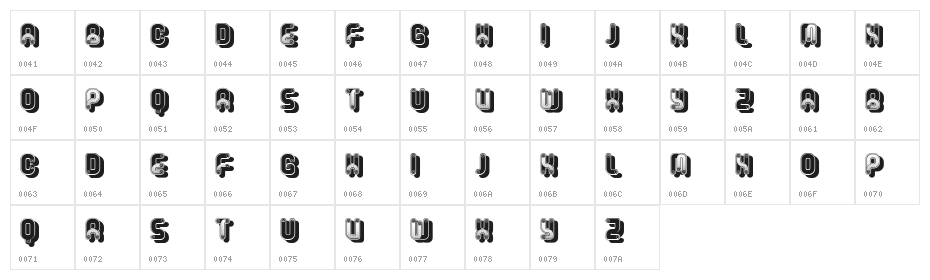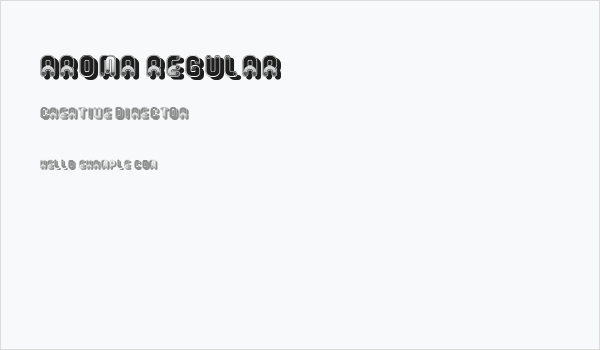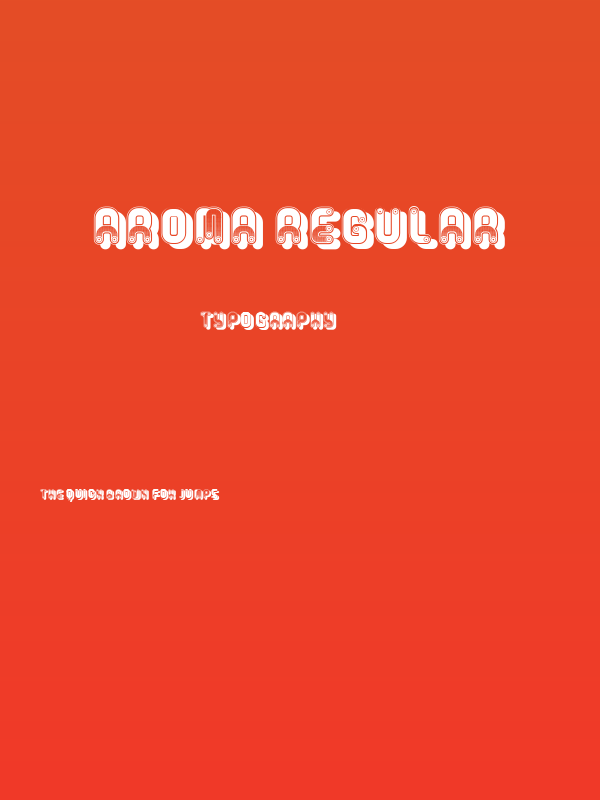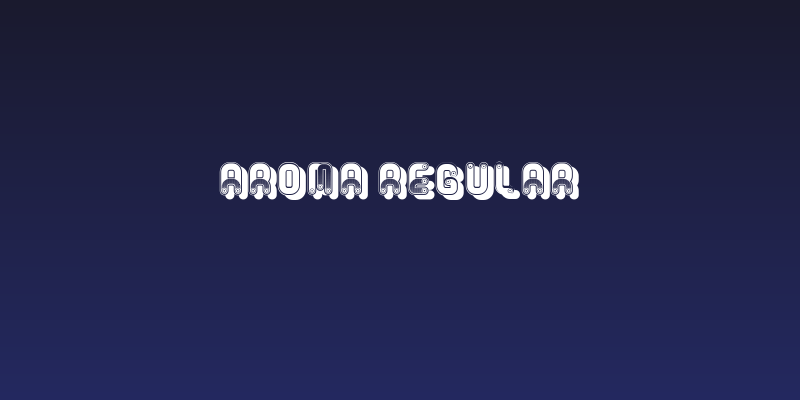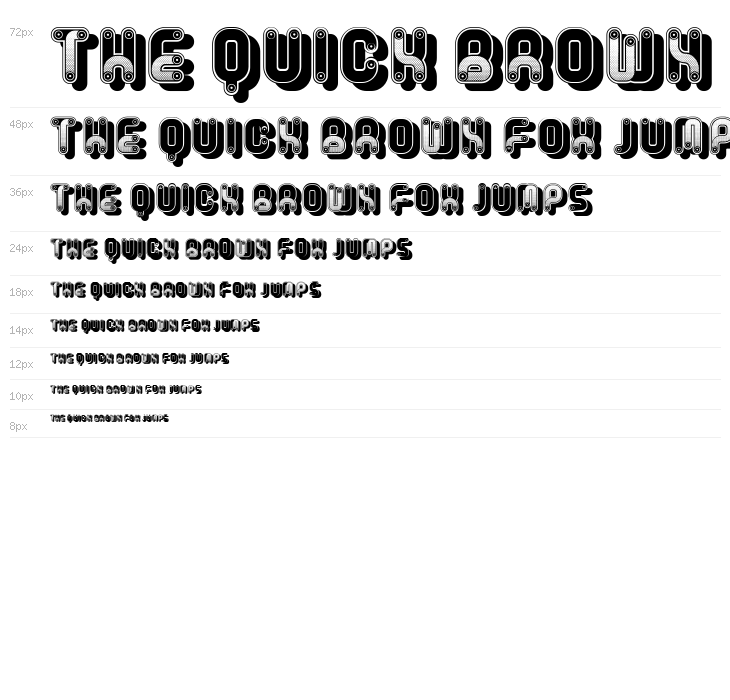
Aroma Regular Font
Aroma Regular Description
This font features a bold and playful design with a distinct three-dimensional effect. Each character is outlined with a thick black border, creating a striking contrast against the inner white space. The letters are adorned with circular embellishments, adding a unique and decorative touch. The overall appearance is reminiscent of retro or vintage styles, making it stand out with its artistic flair. The font's design is consistent across uppercase letters, providing a cohesive and eye-catching look.
| Proposed Projects | Ideal for poster designs, retro-themed branding, eye-catching headlines, and creative advertising materials. |